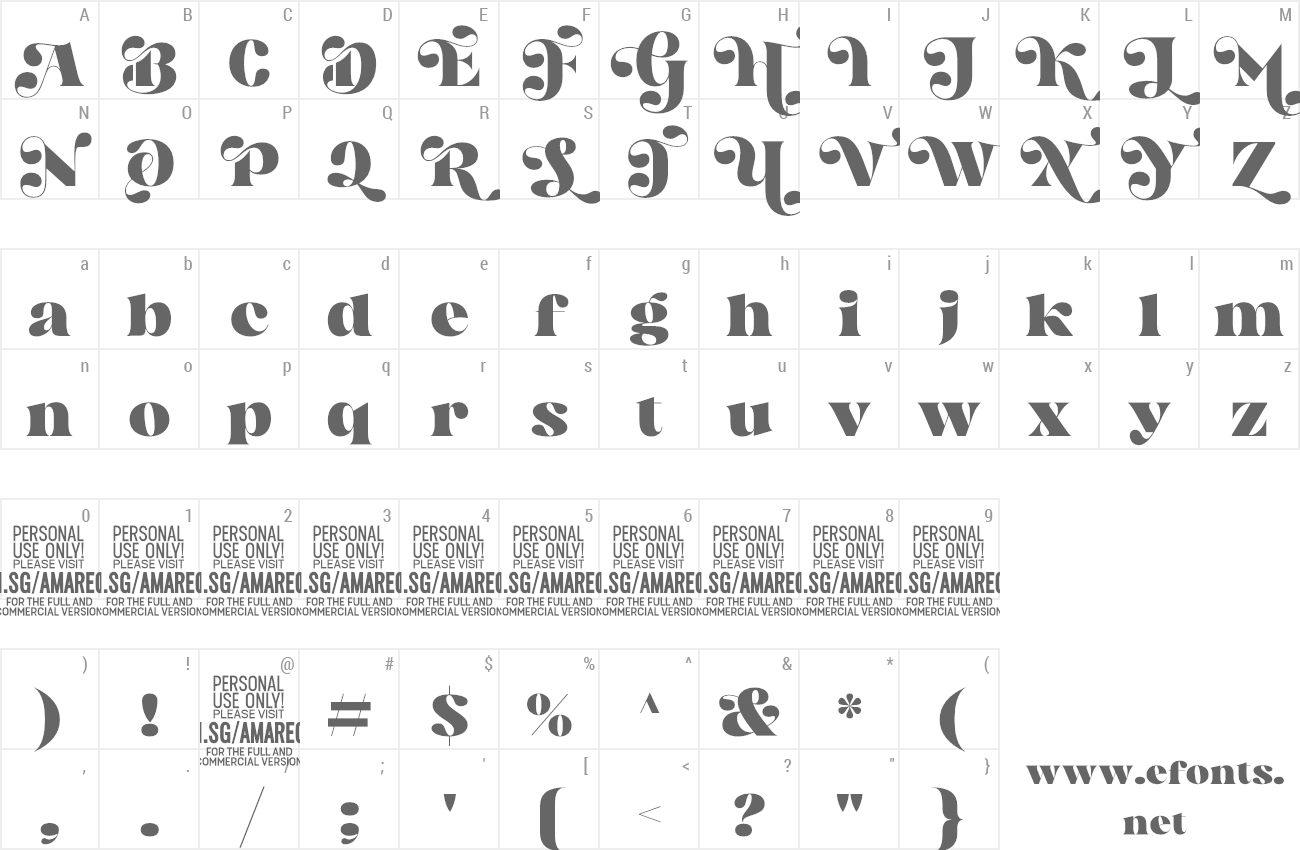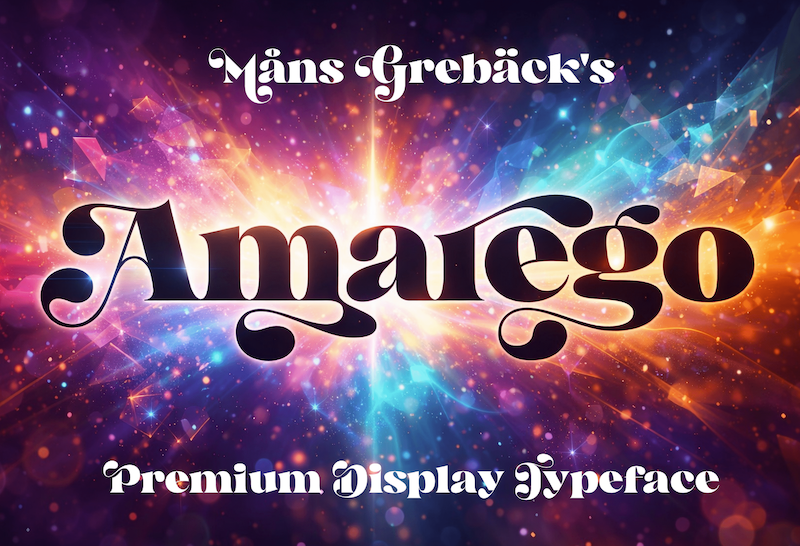
Preview and download Amarego Font. Created by Måns Grebäck in Fancy Retro styles with Free for personal use license.
NOTE: This font is for PERSONAL USE ONLY! To purchase a commercial license, visit: https://www.mansgreback.com/product/amarego Amarego is a decorative display typeface with a flowing presence and a soft sense of drama. The letterforms are bold and rounded, with sweeping curves and expressive terminals that give the font a lively rhythm. For questions, please visit https://mansgreback.com/faq |